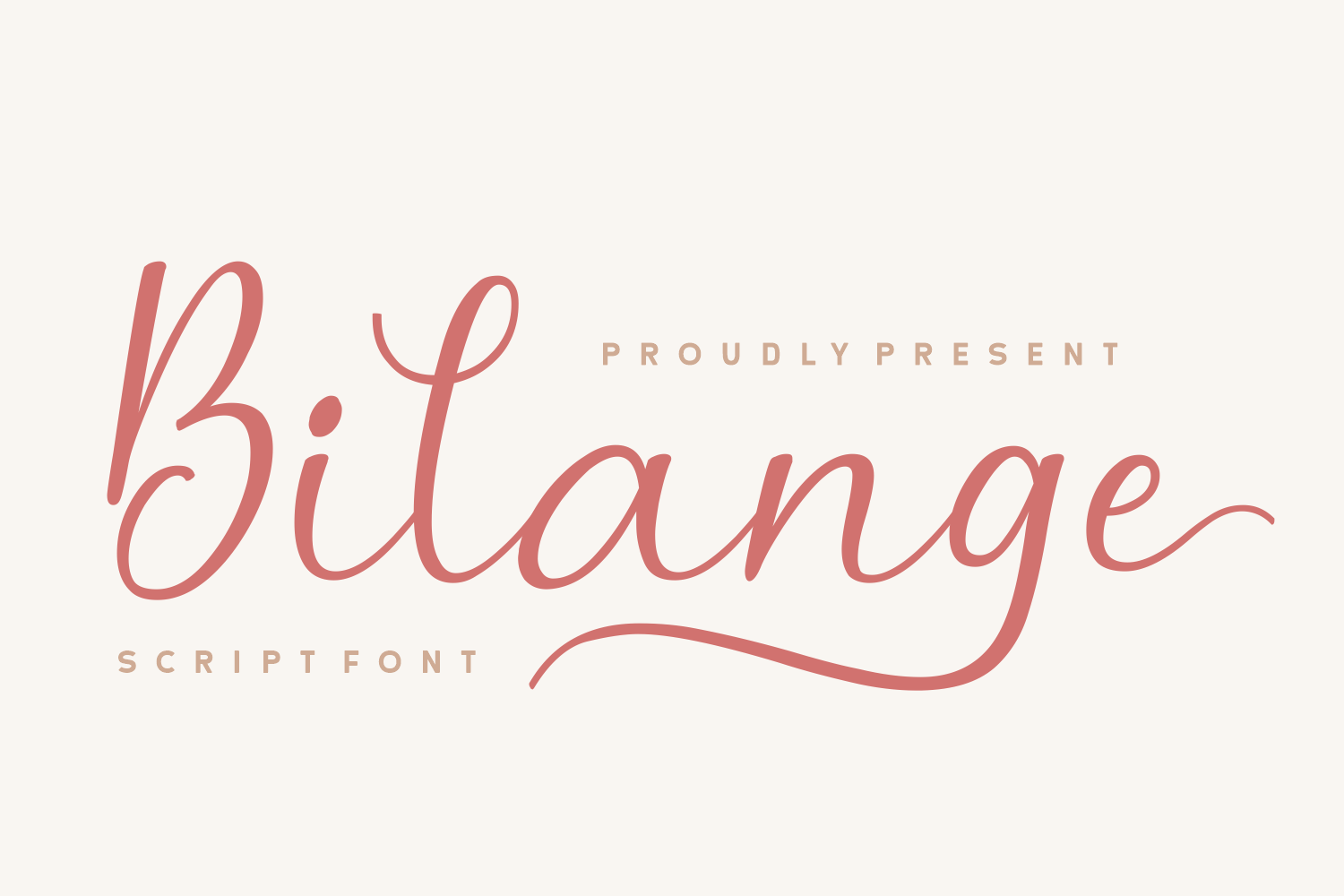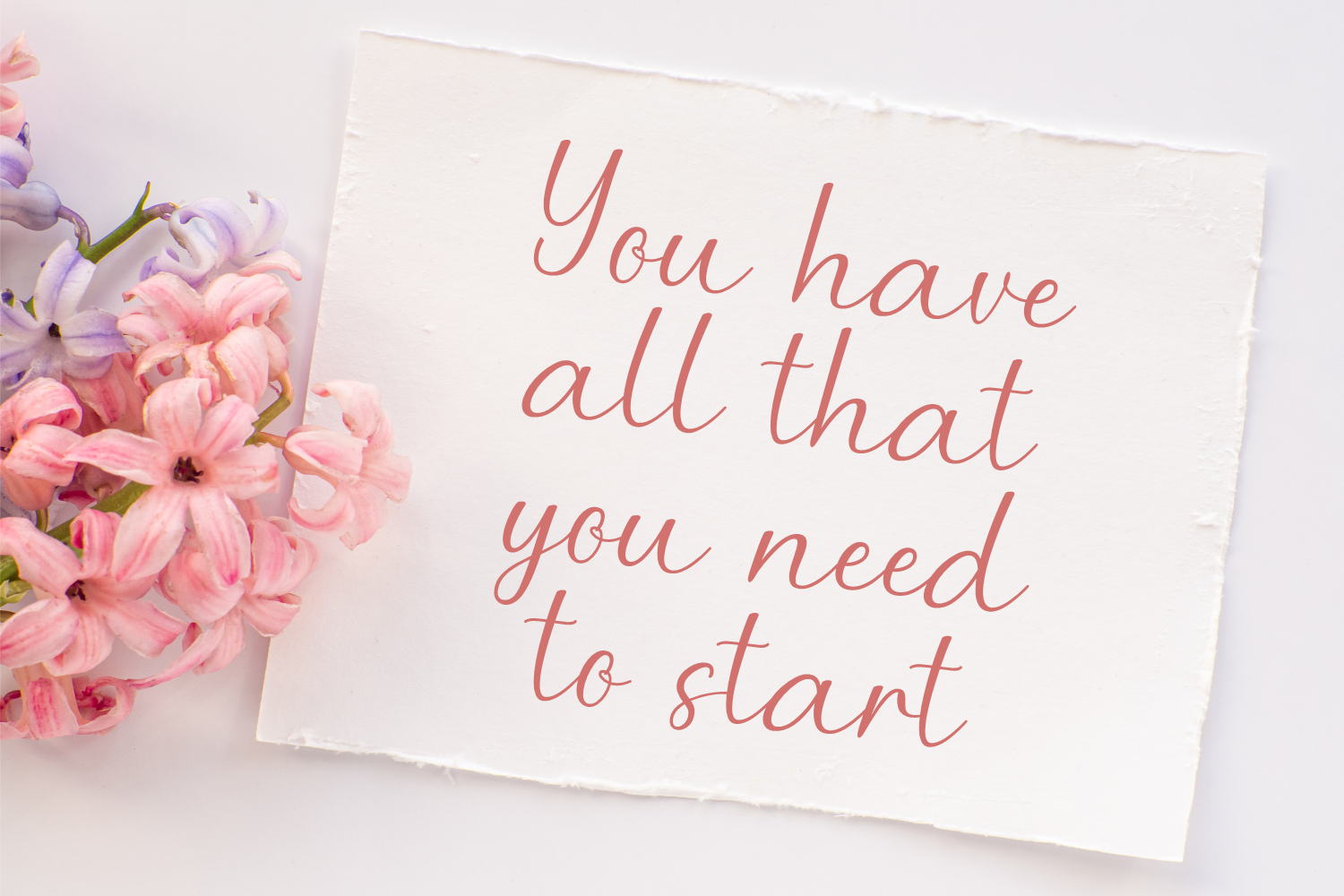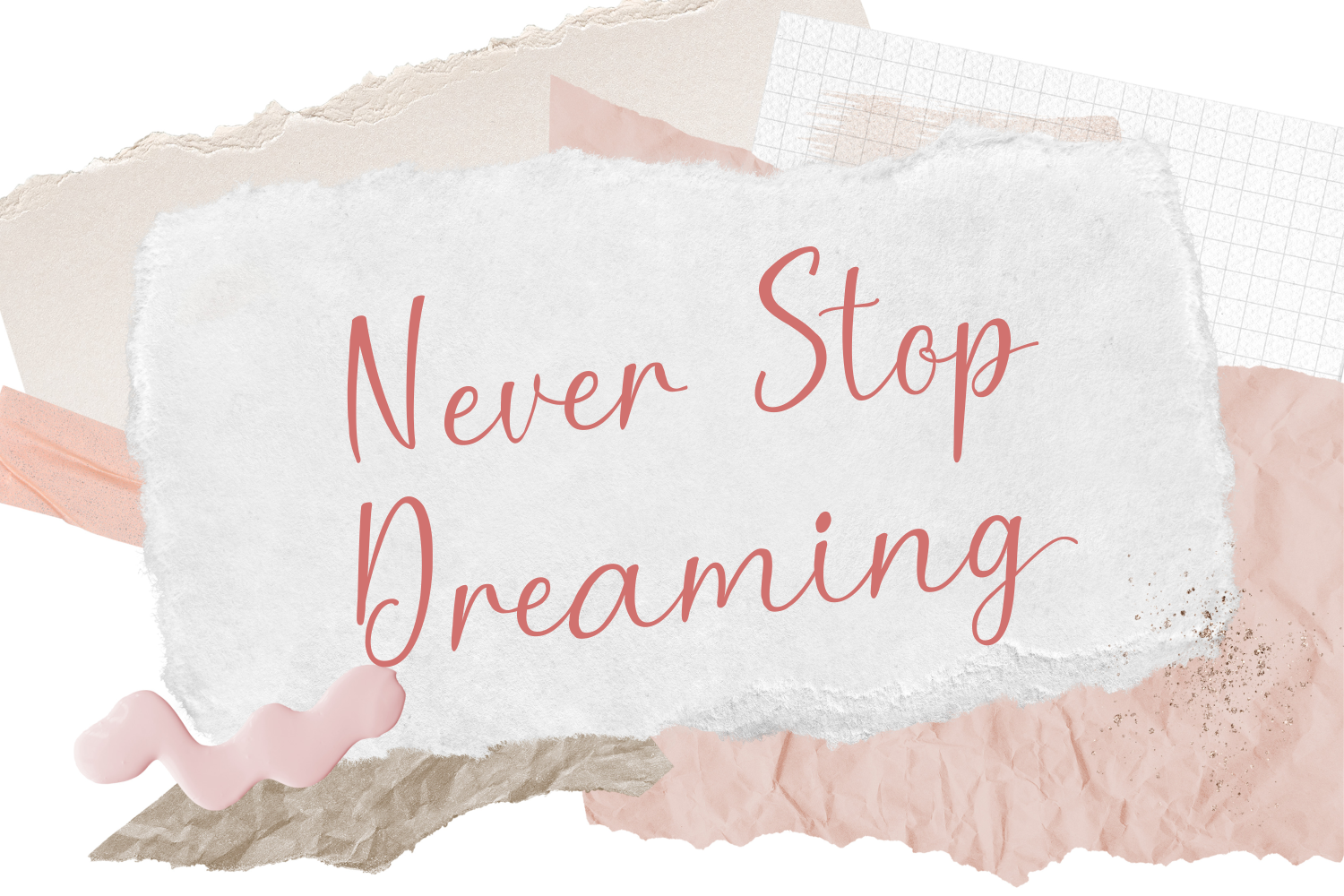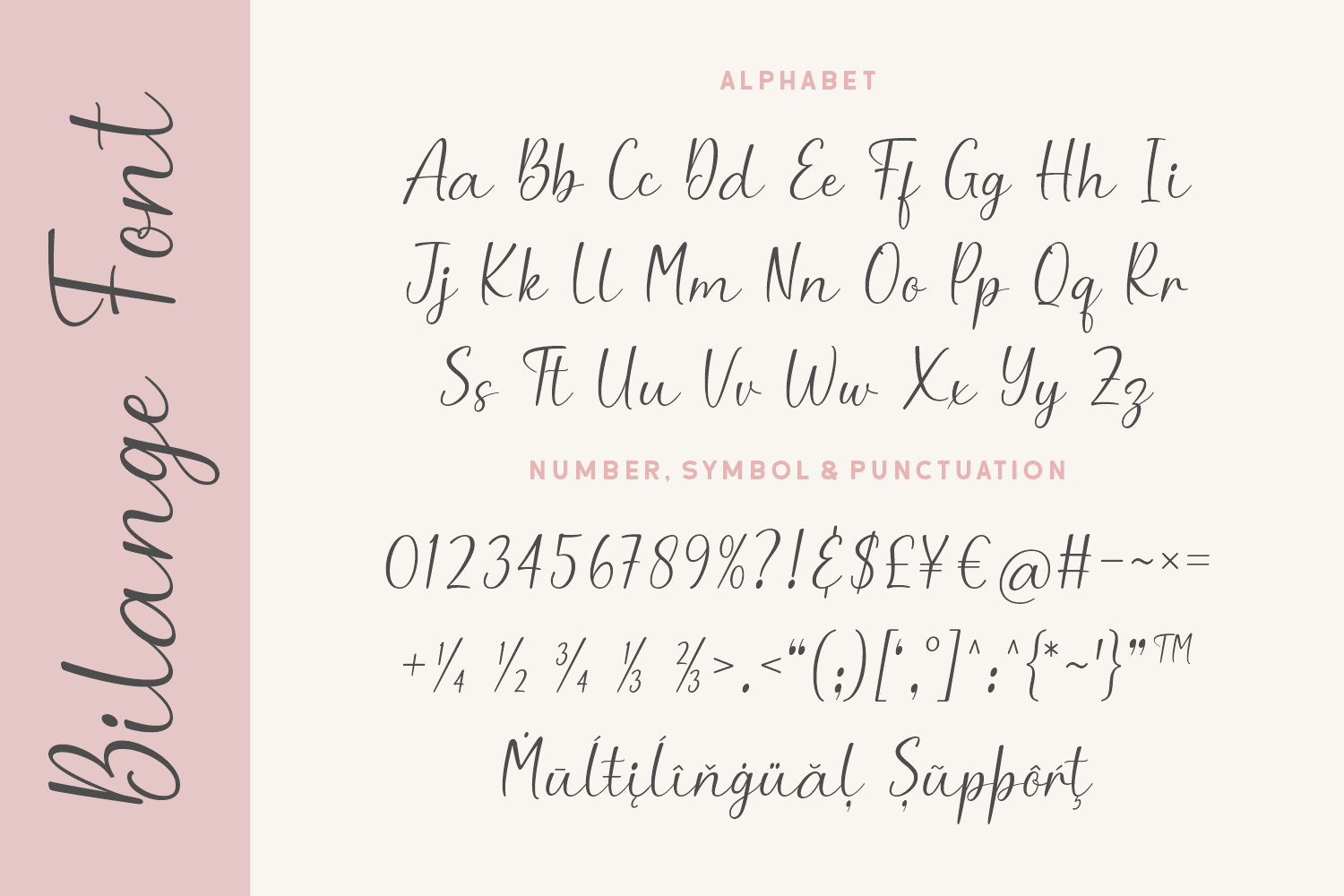
Bilange is a chic and modern script font that blends elegance with a relaxed, handwritten feel. Its smooth curves and flowing lines make it ideal for logos, feminine branding, blog headers, and lifestyle designs seeking a touch of stylish personality.